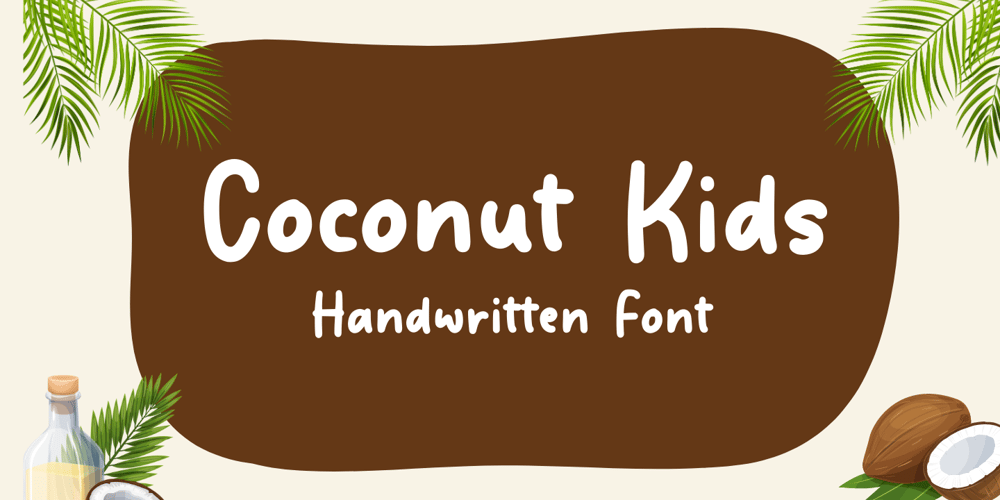
Coconut Kids Font Family was designed by Muhamad Yusron Billah and published by Sronstudio. Coconut Kids contains 1 styles and family package options. Coconut Kids – Handwritten Font, this font Is perfect for product packaging, product designs, label, photography, watermark, special events, or anything.